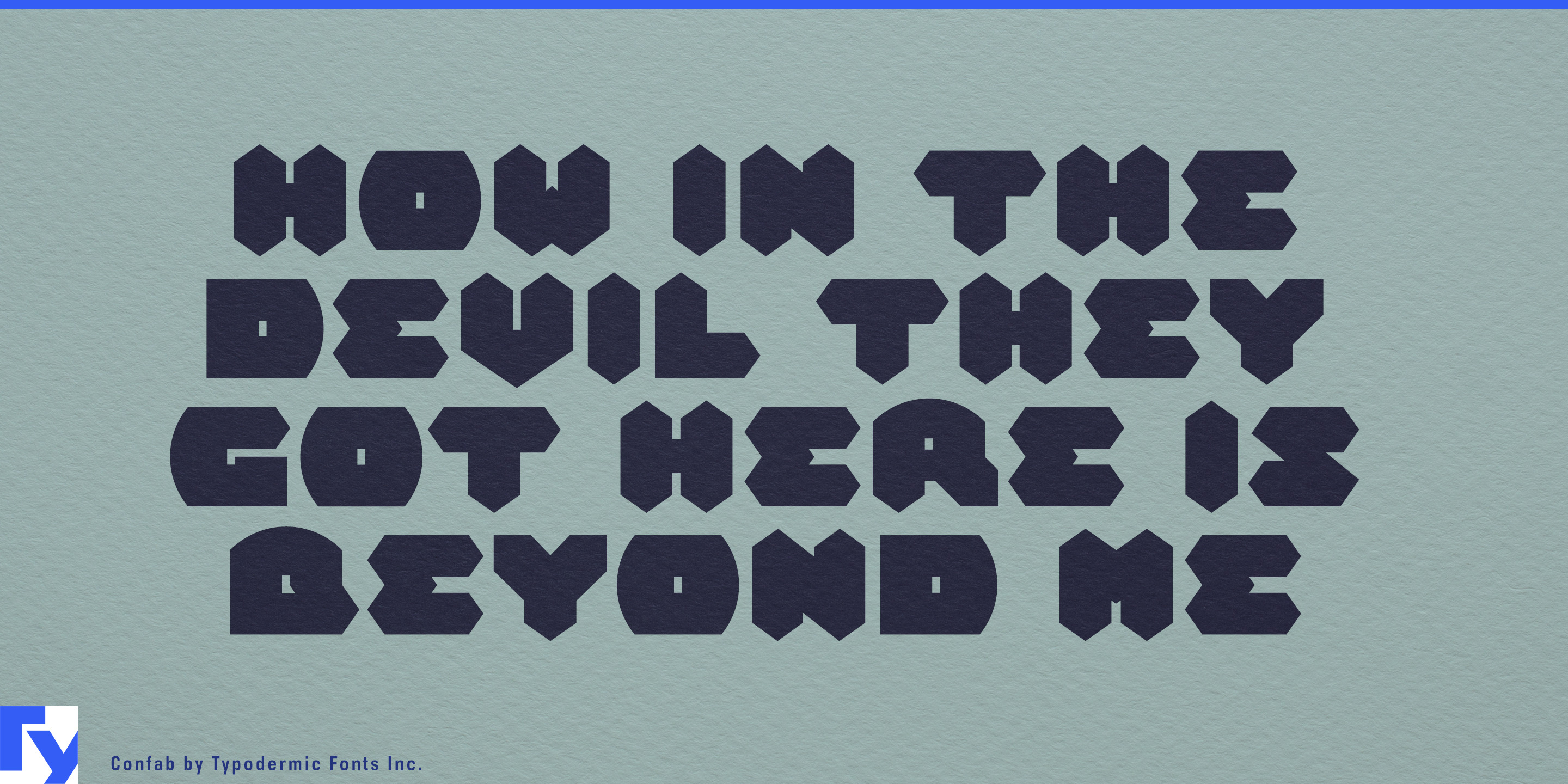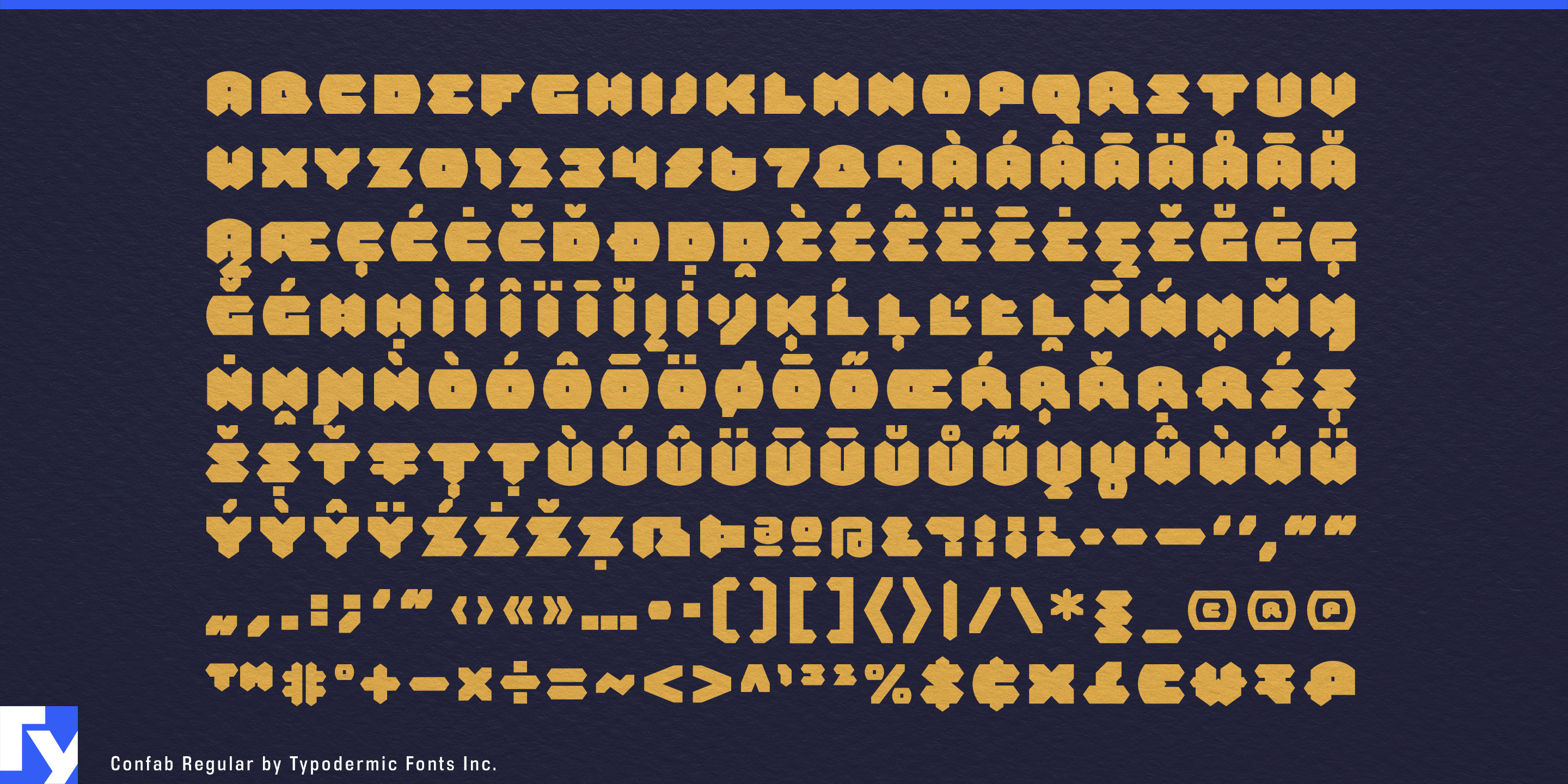
Confab
A lot of rugged-product typography communicates toughness by simply getting heavier. Confab takes a different route. Its wedges, protrusions, abrupt cuts and interlocking shapes suggest objects designed to bite, grip, cut or lock together. The letters look constructed from parts rather than drawn around a conventional skeleton, giving short words a physical quality without resorting to distressed surfaces or generic industrial boldness.
That makes traction products an especially strong fit. Trail-running shoes, hiking boots, winter footwear and aggressive outsole systems use geometry to communicate grip long before the customer reads a specification. Confab can handle shoe model names, traction-technology names, launch graphics and retail displays where the typography appears beside molded lugs, faceted soles and close-up tread photography. Its angularity suggests performance through shape rather than the familiar slanted language of speed.
Winter and off-road tires push the same idea harder. Tread blocks, grooves and biting edges are designed around contact with difficult surfaces, and Confab’s protruding forms can feel almost tread-like themselves. Tire model names, snow-traction campaigns, dealer displays and technology headings can use the face as the distinctive display layer while a conventional sans handles dimensions, ratings and technical information.
Cutting tools offer another interpretation of the same geometry. Circular saws, reciprocating-saw blades, cutting discs, router bits and demolition tools already speak through teeth, edges and repeated angular forms. Confab can name a blade series, identify a cutting technology or dominate tool packaging and workshop displays without relying on stencil lettering or simulated metal textures. Power tools, tool storage, clamps, work lights and rugged cases can extend that visual language across a workshop product range.
Architectural products open the idea beyond obvious rugged equipment. Façade panels, folded-metal cladding, perforated screens and louver systems are built from repeated components, joints and negative spaces that can echo Confab’s assembled construction. Architectural hardware such as brackets, hinges, mounting systems and structural connectors makes an even more literal match: products whose purpose is to engage with another part.
Grip becomes architectural too. Stair nosings, anti-slip treads, grated walkways, entrance systems and non-slip decking use serrations, grooves and raised surfaces to create traction underfoot. Confab can bring that same sense of engagement into product-family names, catalog covers, trade-show graphics and specification headings. Modular acoustic panels, ceiling baffles and partition systems offer a quieter variation, using the font’s geometry to echo repeated pieces fitted together in space.
Ruggedized outdoor and jobsite equipment can draw on the same vocabulary. Protective cases, recovery gear, hard-shell accessories and impact-resistant products benefit from typography that looks physically engaged with the object rather than merely labeled as tough. Confab is particularly effective for product names and short technology terms where its unusual silhouettes have room to register.
Puzzles provide a completely different market for the same construction. Spatial logic games, puzzle boxes, abstract strategy games, construction toys and escape-room identities can make Confab’s interlocking forms feel like pieces waiting to rotate, slide or fit together. Here the strange cuts and projections suggest problem solving rather than aggression, giving the font a playful use that has little to do with conventional science-fiction graphics.
Confab works best where a product, system or game needs a name that feels physically constructed: something designed to grip a trail, bite into ice, cut through material, fasten a façade or click into place with the next piece.